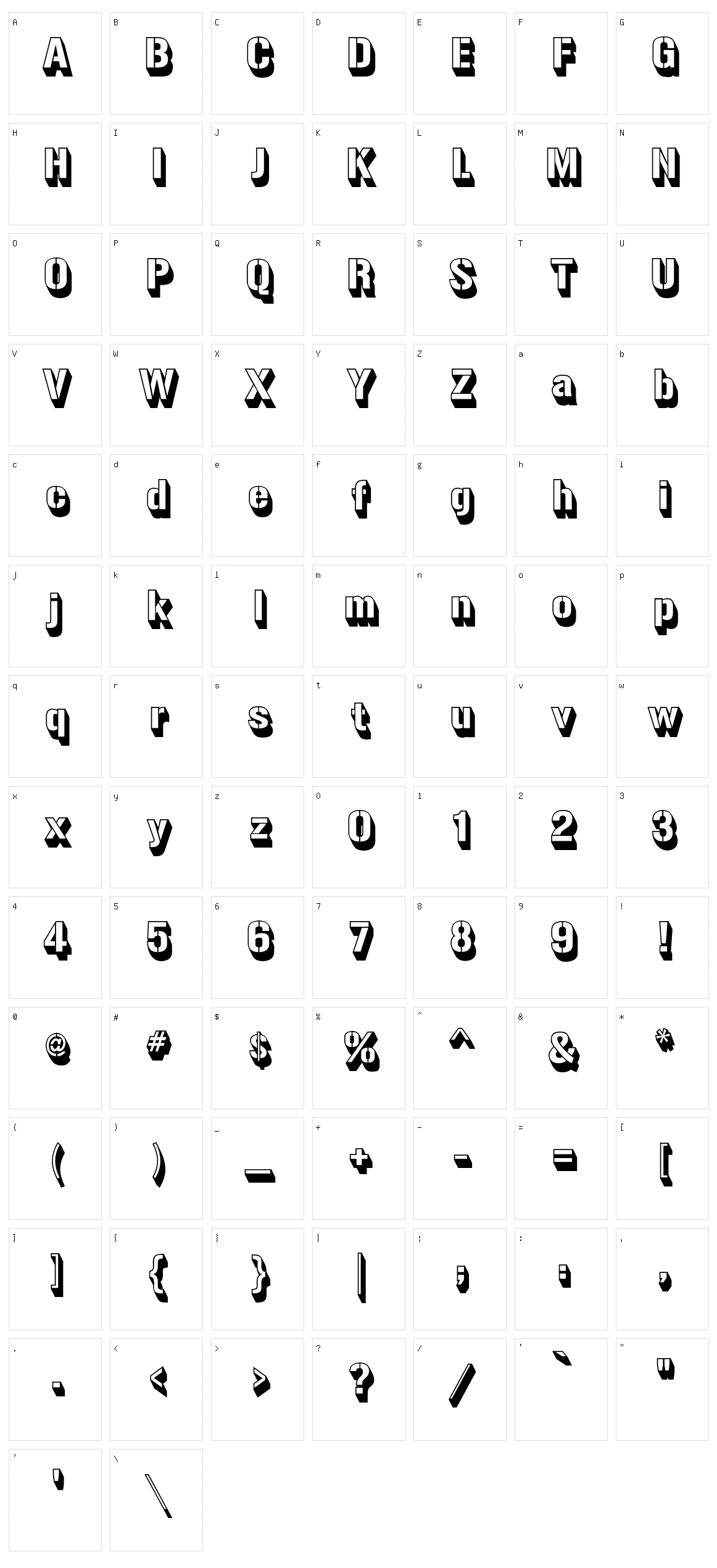
The free font Gunplay is carefully designed by Typodermic Fonts, showcasing a thoughtful balance of creativity and usability and falls under the Stencil font style. When you download the ZIP file, it contains only 205.46 KB of font files, making it lightweight and quick to download. Please review the license details below to understand permitted usage and distribution rights. If license information is not available, we recommend using this font for personal projects only or contacting the author directly for commercial usage permissions.